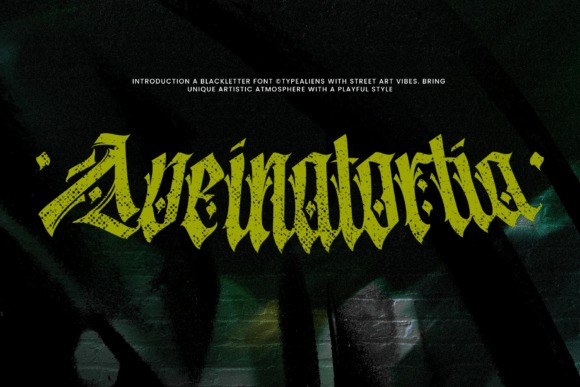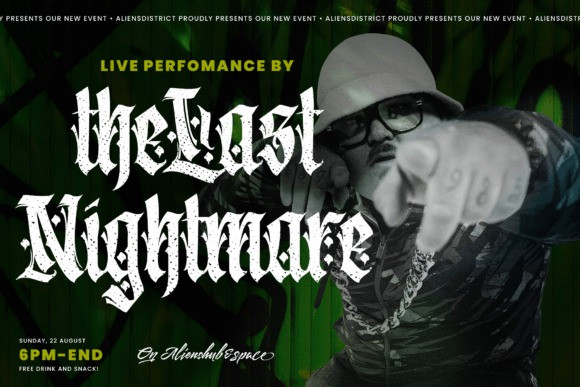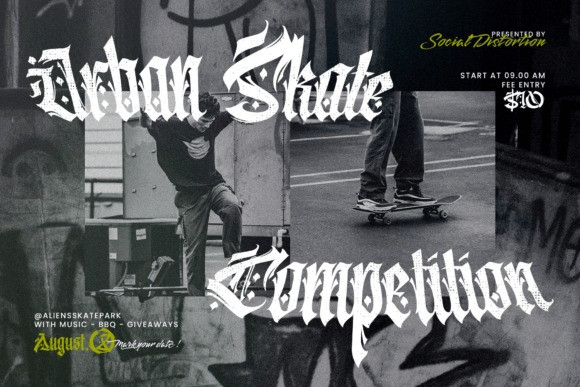
Aveinatortia Font
AVEINATORTIA is a blackletter font that has been modified to be more decorative so that it looks more urban or street art. The goal is that it can be used for different urban or street art designs, not just relying on graffiti letters or spray paint. Also suitable for supporting designs for fashion brands, skates and brands that are urban or street art. The presence of several additional ornaments on each letter makes a strong decorative impression.